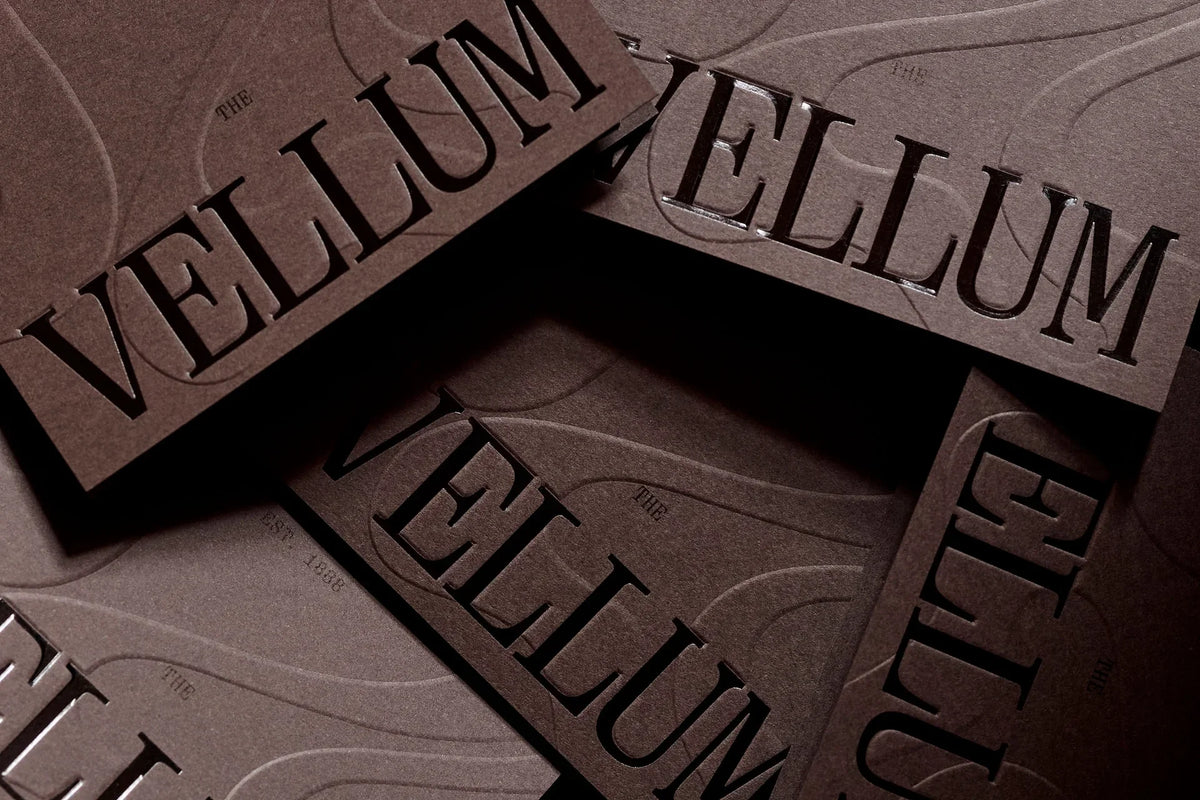
Tasked with designing and producing a promotional package that would house a collection of printed materials, Seesaw created a rich brand world to showcase six unique paper stocks.
Each piece, from menus to in-room stationery, demonstrates the tactile beauty and versatility of Fedrigoni papers. The Vellum blends storytelling, sensory detail and production craft into a luxurious and memorable brand experience.The idea of The Vellum draws from historic craftsmanship and boutique hospitality to tell a story of material beauty. It gave Seesaw a fictional yet tangible platform to show how paper can support rich storytelling and elevated brand expression in real-world applications.
Expressive typography, and rich tones create a refined and cohesive visual system. High quality finishes including foils and blind embossing were applied with care, enhancing tactility without overwhelming the stock. Every piece was intentionally designed to feel like part of a lived-in and luxurious hotel brand.
“From the beginning, our goal was to create something that not only showcased the luxury and sophistication of our Fedrigoni Specialty Papers range but also reminded the creative community of the enduring power of paper in storytelling.
Collaborating with Seesaw was an absolute pleasure. They understood the brief intuitively, and their ability to translate our vision into a design piece that is not only elegant but also deeply considered was nothing short of exceptional. From concept to execution, their attention to detail, understanding of materiality, and passion for craft shone through. They perfectly captured what we set out to achieve: that paper is not just a substrate, but vital to the creative process.
This promotion is a highly admired piece, praised for its exceptional design, thoughtful storytelling and innovative use of specialty paper. It's a celebration of what is possible when great design meets beautiful materials - proof that in a digital age, print still has the power to connect, inspire and elevate.” — Cyndi Setia, Spicers